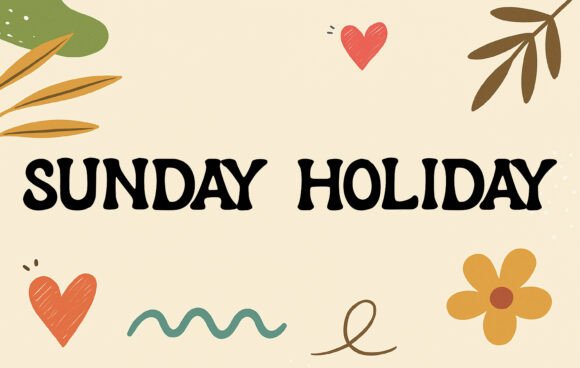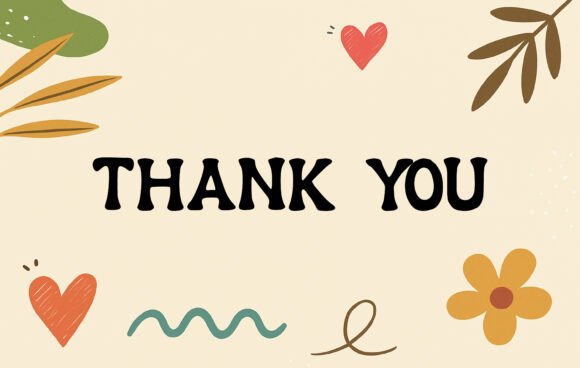
Discover the Power of Farhan Font: Elevate Your Designs with Style
I’ll never forget the moment I stumbled upon Farhan Font while working on a branding project for a trendy boutique hotel. I was on a tight deadline, and my design was feeling flat and uninspired. I had tried countless fonts, but none seemed to capture the perfect blend of elegance and playfulness that I was looking for. That was until I discovered Farhan Font. ✨
This font has been a game-changer for me, and I’m excited to share its awesomeness with you. In this article, we’ll dive into the world of Farhan Font, exploring its features, uses, and what makes it a top choice for designers, crafters, and creative hobbyists.
An Honest Review of Farhan Font
- ✅ Legibility: Farhan Font is incredibly easy to read, making it perfect for both title and body text.
- ✅ Versatility: This font is suitable for a wide range of designs, from magazine headlines to t-shirts, social media, branding, wedding invitations, and more.
- ✅ Aesthetic appeal: Farhan Font has a unique charm that adds a touch of sophistication to any design.
While Farhan Font is an excellent choice, there are a few minor things to keep in mind:
- ⚠️ Limited availability of extended language support: If you need to work with languages that require special characters, you might want to double-check the font’s capabilities.
- 🤔 Some users may find it too ornate: Depending on your design style, Farhan Font’s ornate features might be overwhelming. Experiment with different font sizes and styles to find the perfect balance.
The Story Behind Farhan Font
Farhan Font was designed with the goal of creating a versatile, elegant font that could be used for a wide range of creative projects. The designer drew inspiration from classic typography and infused it with modern flair, resulting in a unique and captivating font.
Q: What makes Farhan Font so special?
A: Farhan Font’s unique blend of elegance and playfulness makes it a standout choice for designers. Its legibility and versatility also contribute to its popularity.
Q: Is Farhan Font available in different styles?
A: Yes, Farhan Font comes in various styles, including regular, bold, and italic. You can experiment with different styles to find the perfect fit for your design.
Q: Can I use Farhan Font for body text?
A: Absolutely! Farhan Font is legible and suitable for body text. However, you may want to consider using a larger font size or adjusting the line height for optimal readability.